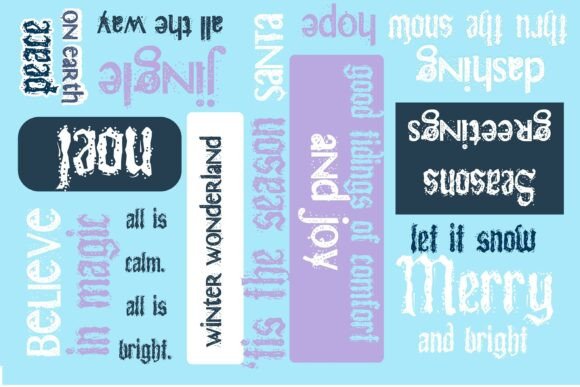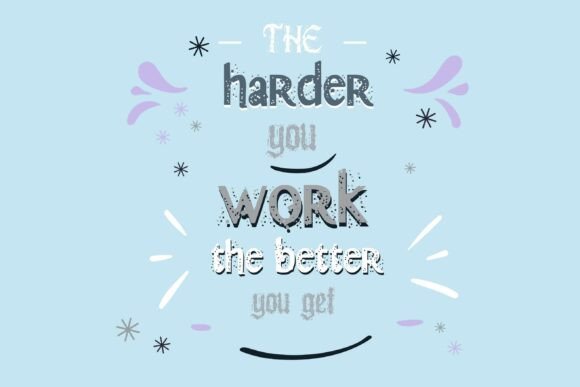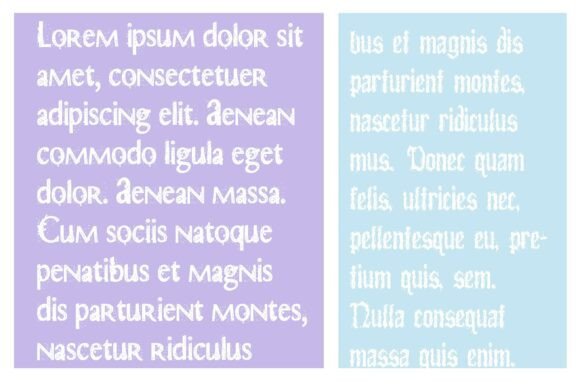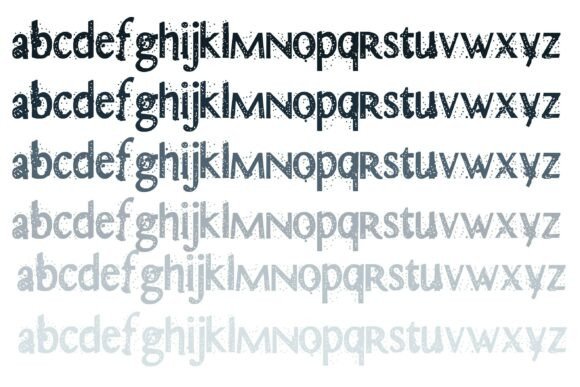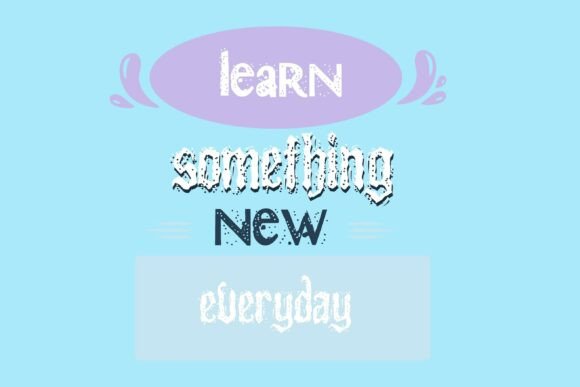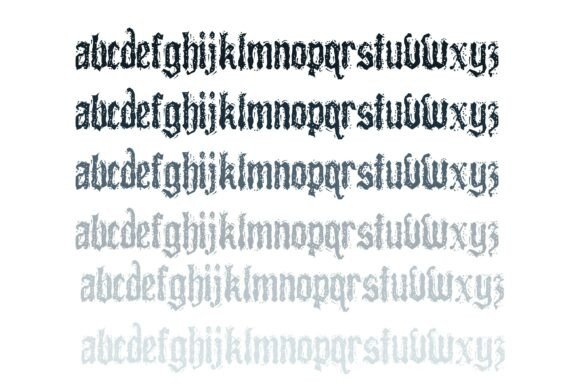
Introducing the Damocles Blizzard Duo Font: A Chilling Winter Wonderland
Are you looking for a font duo that can add a touch of winter magic to your designs? Look no further than the Damocles Blizzard Duo Font, a hand-crafted decorative font duo that combines a grungy font sporting snow and a perfectly coordinated display font. This comprehensive font duo is perfect for designers and crafters who want to create a dramatic, frosty winter atmosphere in their work.
A Powerful and Chilling Font Duo
The Damocles Blizzard font duo consists of two fonts: the primary Damocles Blizzard typeface and the accompanying Damocles Script. The primary Damocles Blizzard typeface is thick, solid, and appears speckled or textured with snow and ice, giving it a powerful, chilling presence perfect for winter headlines. The accompanying Damocles Script is a flowing, yet equally textured handwritten complement that adds a touch of elegance to your designs.
Key Features of the Damocles Blizzard Duo Font
- Hand-crafted decorative font duo: The Damocles Blizzard font duo is a unique and exclusive font duo that is hand-crafted to perfection.
- Combines a grungy font with a display font: The font duo combines a grungy font sporting snow and a perfectly coordinated display font, making it perfect for creating dramatic winter designs.
- Bonus tag dingbat font included: The font duo comes with a bonus tag dingbat font, making it a comprehensive package.
- 8 fonts altogether: With all family members combined, the font duo includes 8 fonts altogether, giving you plenty of options to choose from.
Perfect for Winter Designs
The Damocles Blizzard font duo is perfect for creating attention-grabbing seasonal sales banners, dramatic winter posters, themed movie graphics, or unique holiday apparel. The highly tactile and textured look of the Damocles Blizzard typeface instantly evokes the feeling of a harsh winter storm, making it perfect for designs that require a bold and chilling presence.
Use Cases for the Damocles Blizzard Duo Font
- Seasonal sales banners: Use the Damocles Blizzard font duo to create eye-catching seasonal sales banners that will grab the attention of your customers.
- Winter posters: Create dramatic winter posters that will leave a lasting impression on your audience.
- Themed movie graphics: Use the font duo to create themed movie graphics that will add a touch of winter magic to your designs.
- Holiday apparel: Create unique holiday apparel that will stand out from the crowd with the Damocles Blizzard font duo.
Why Choose the Damocles Blizzard Duo Font?
The Damocles Blizzard font duo is a unique and exclusive font duo that offers a range of benefits, including:
- High-quality design: The font duo is hand-crafted to perfection, ensuring a high-quality design that will elevate your work.
- Flexibility: The font duo includes 8 fonts altogether, giving you plenty of options to choose from.